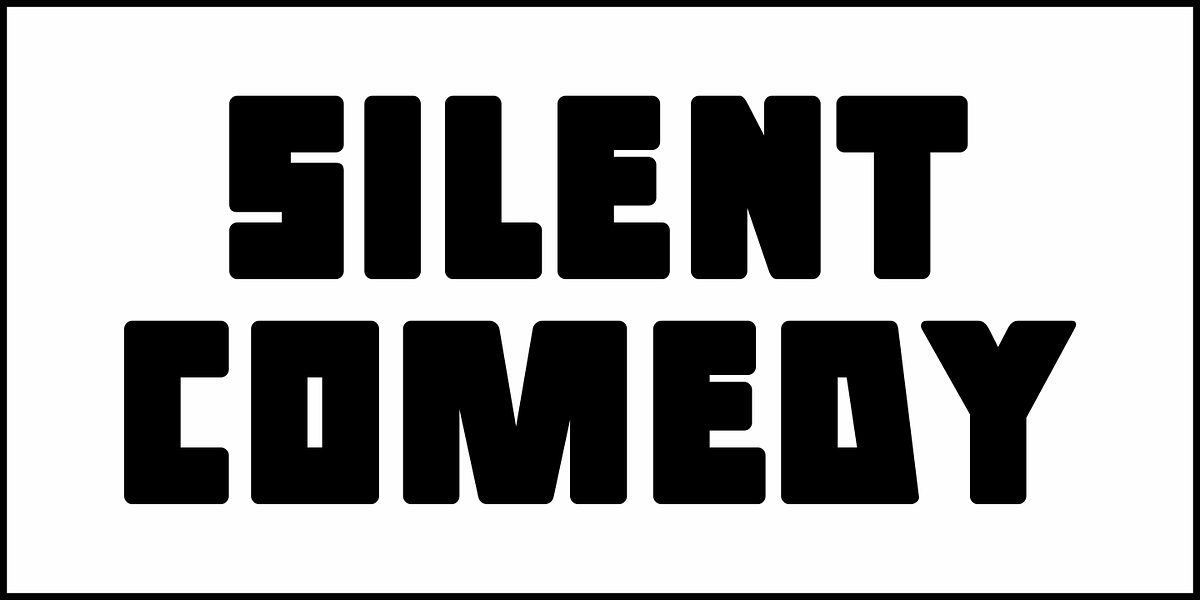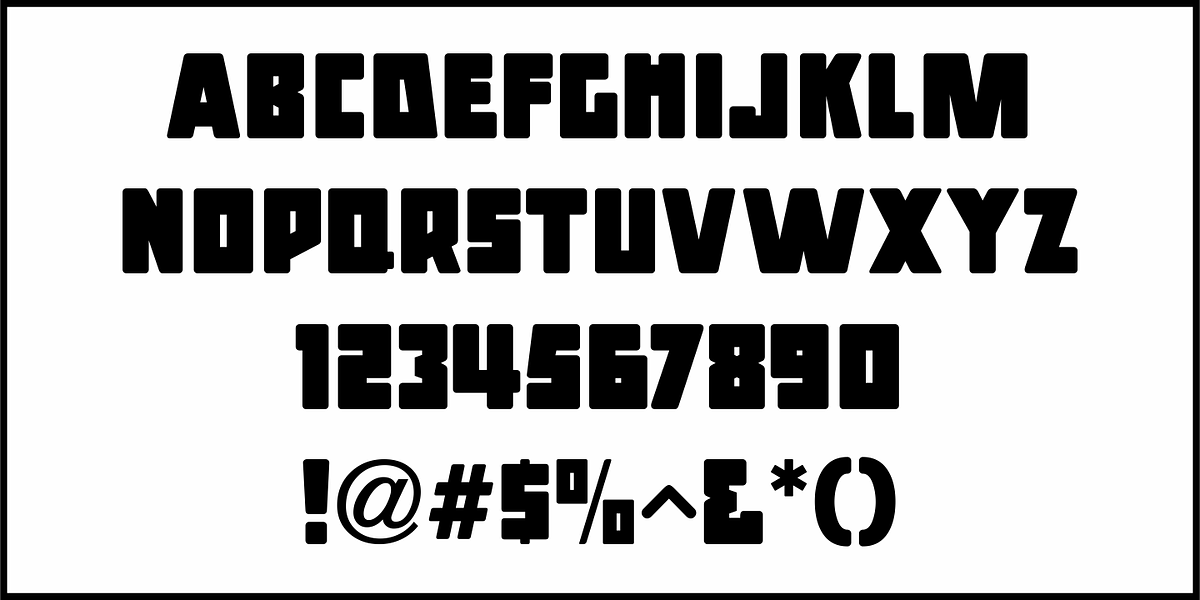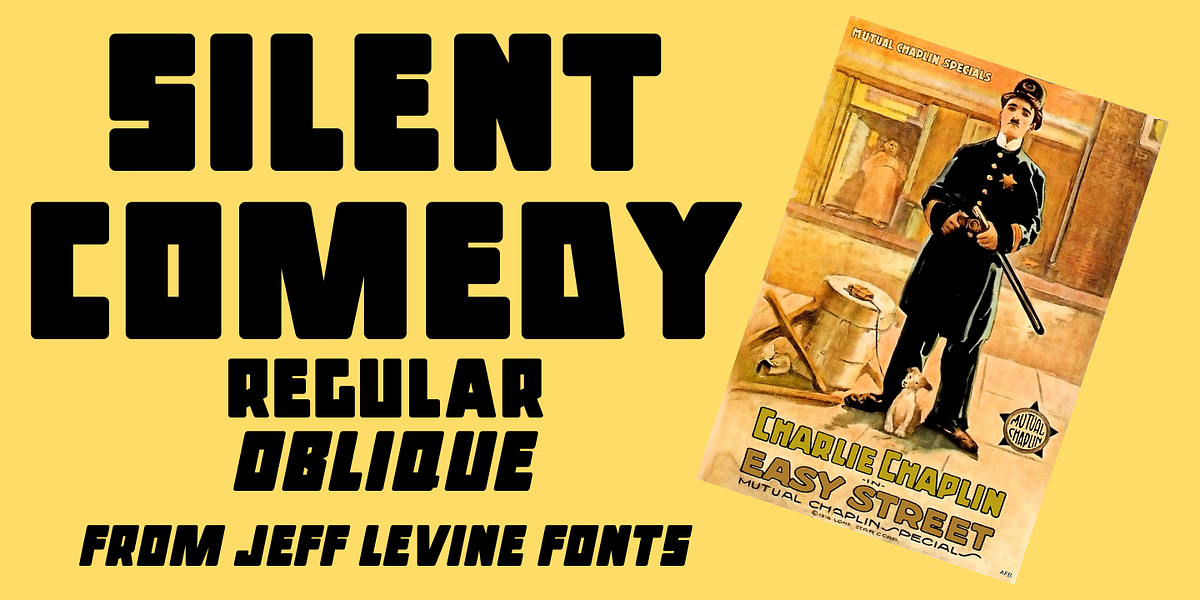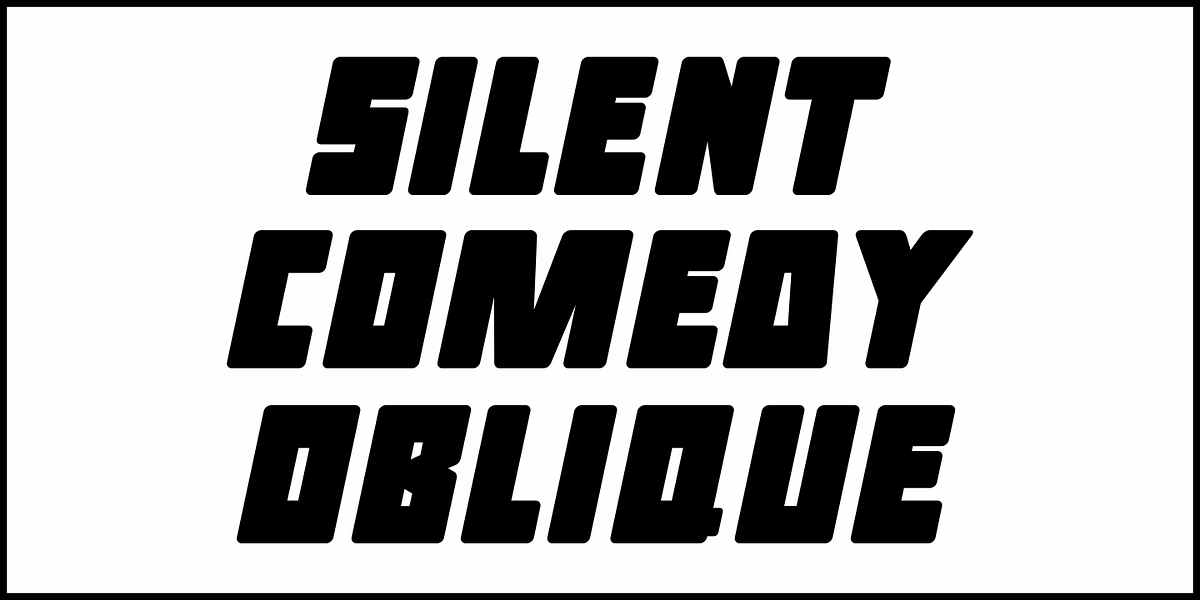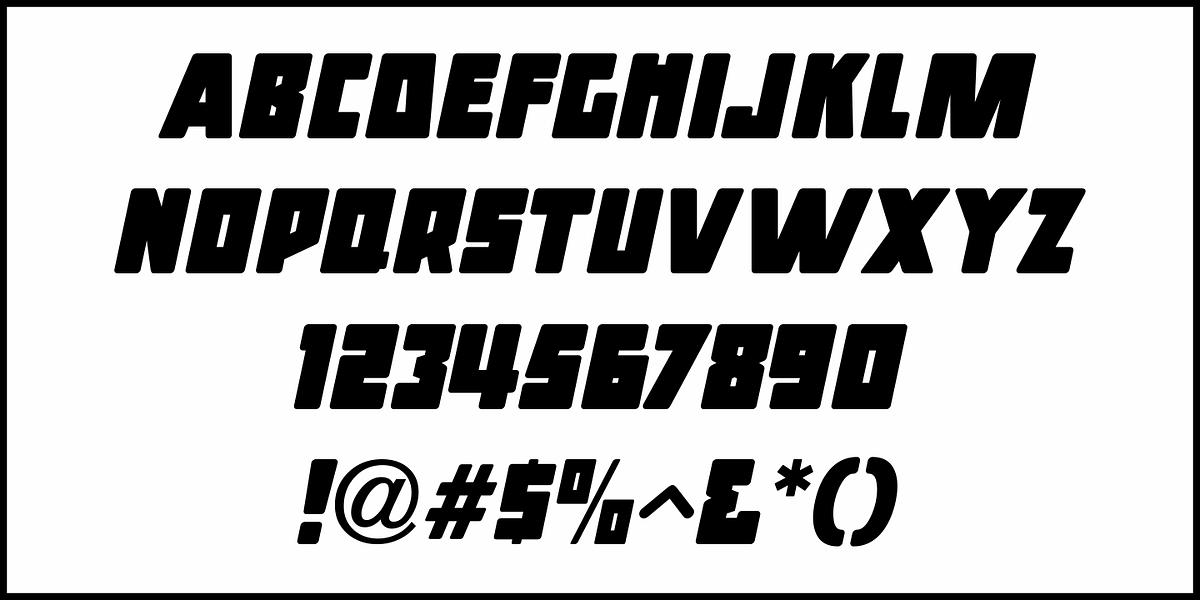
Silent Comedy JNL
A poster for the 1917 Charlie Chaplin comedy “Easy Street” had Chaplin’s name hand lettered in thick, round cornered block characters.
This inspired Silent Comedy JNL, which is available in both regular and oblique versions.